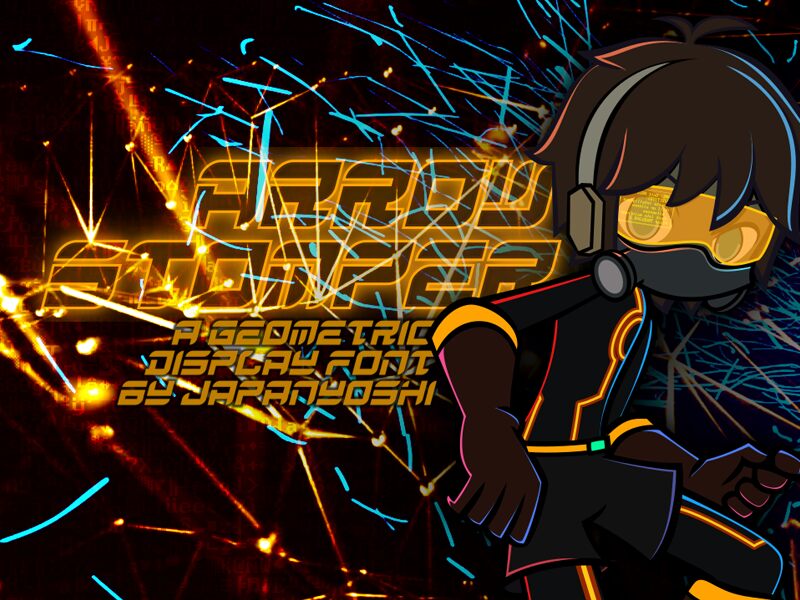
Arrow Stomper
Arrow Stomper font is a futuristic typeface designed by UkiyoMoji Fonts.
Arrow Stomper is a display tech font commissioned for a video game about, well, stomping arrows. Really, really fast.